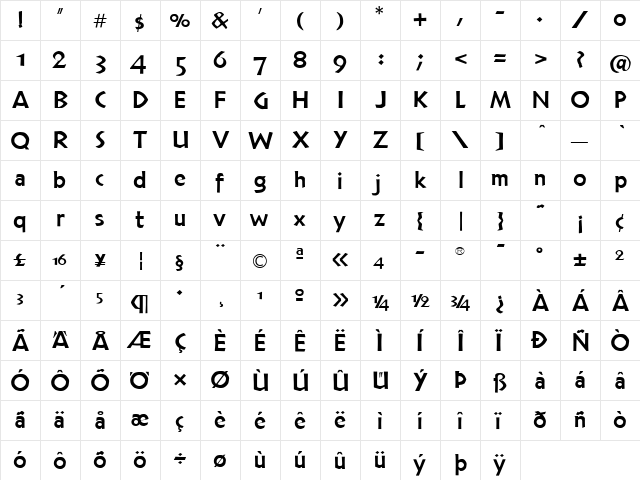
TFNeueneulndBooKOsf Normal
Design Context for TFNeueneulndBooKOsf Typeface
TFNeueneulndBooKOsf takes a measured approach to typography — its balanced proportions and neutral character make it a reliable workhorse for both digital and print work.
Pro Tip: Use TFNeueneulndBooKOsf in both headline and body roles to test its range before committing to a single application.